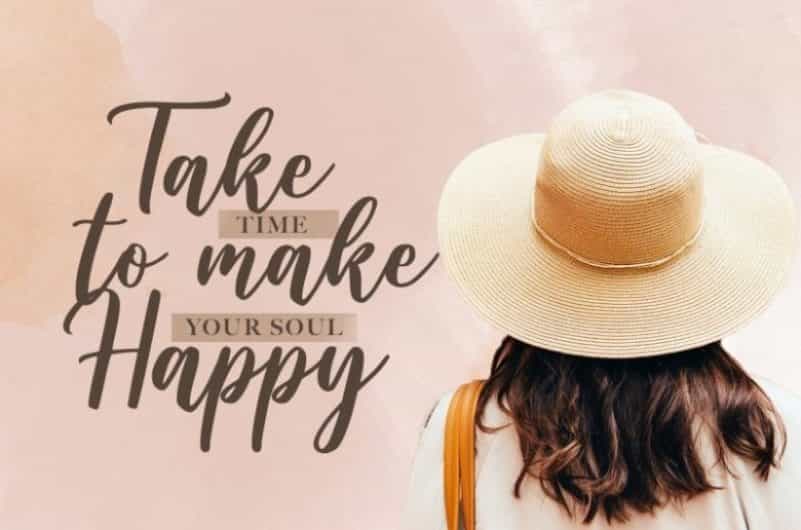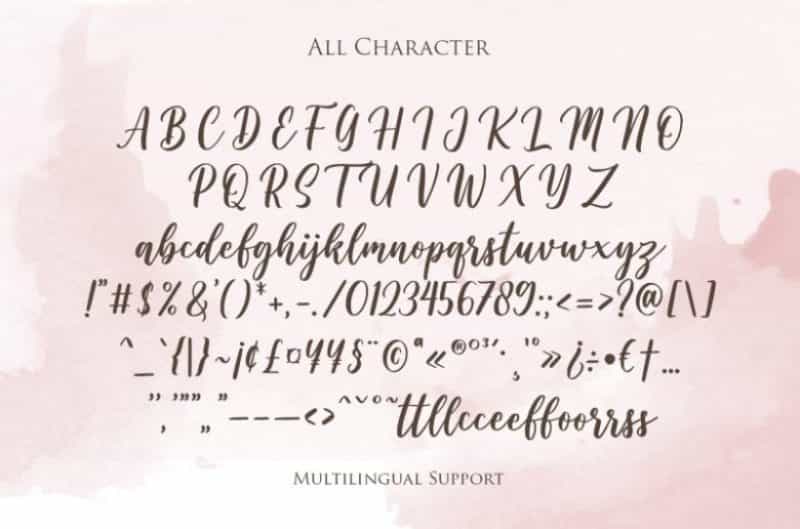
Wishper Script is a contemporary style of the calligraphic font. It contains all the lowercase and uppercase letters, old styled figures, and F-ligatures too. The font also has symbols and digits. Some of the languages that are supported are the Latin-based ones while others include some special characters.